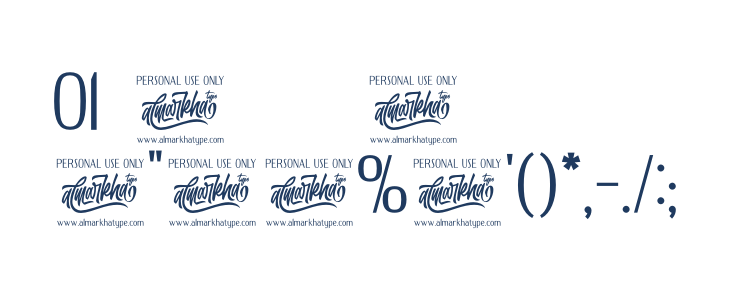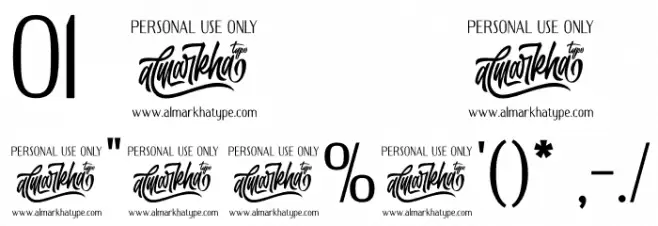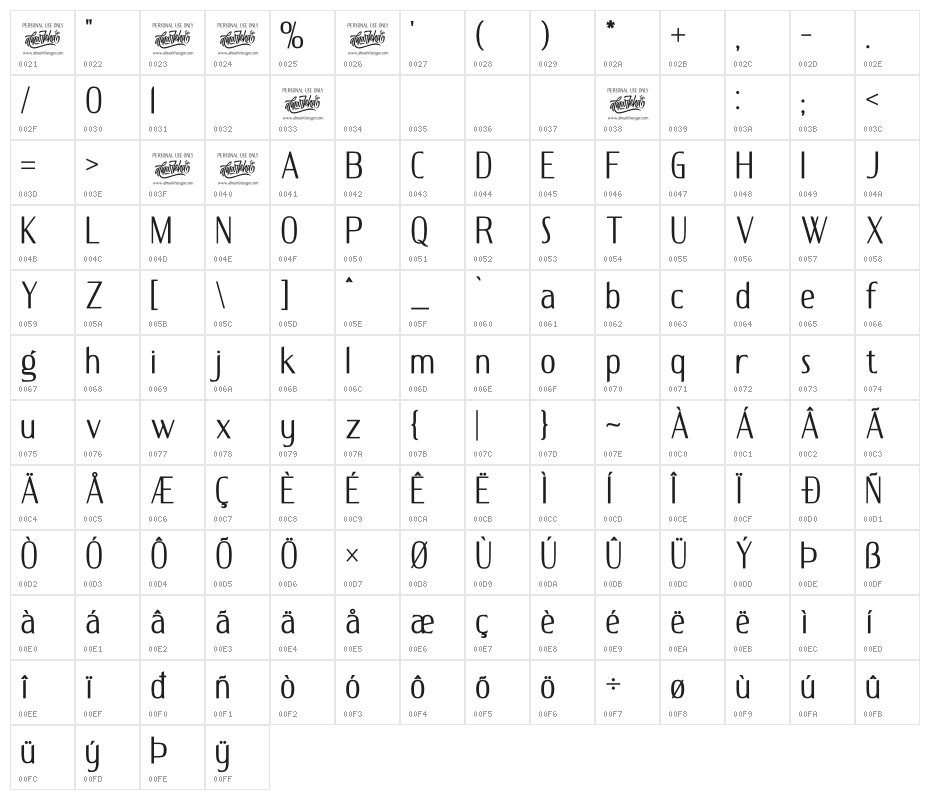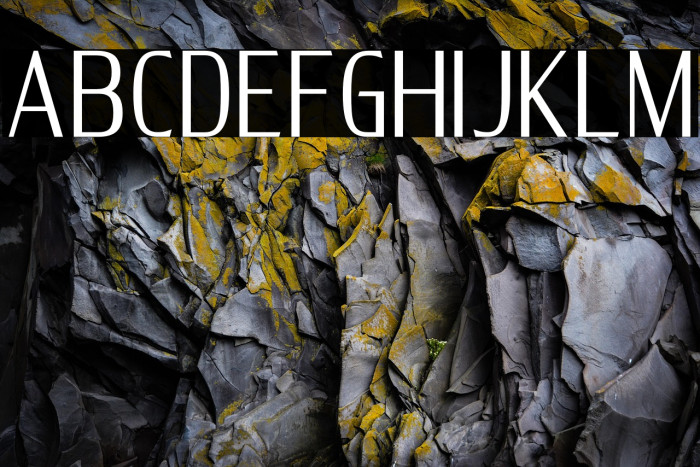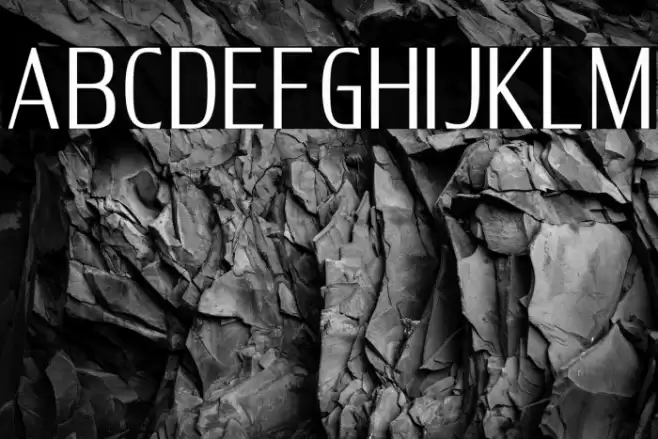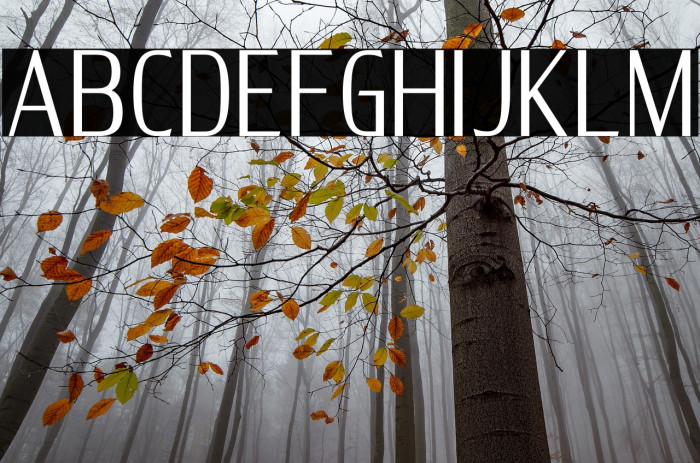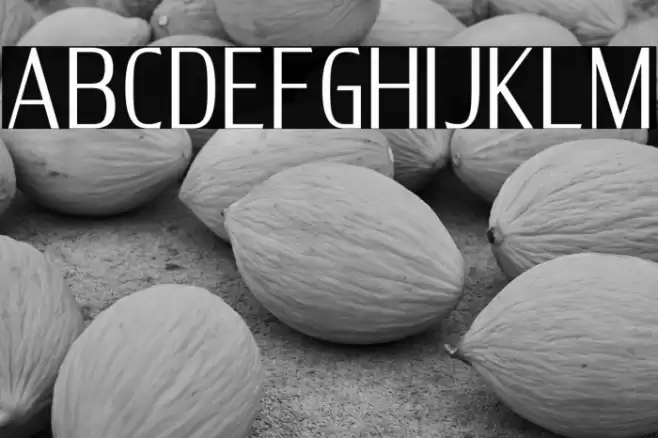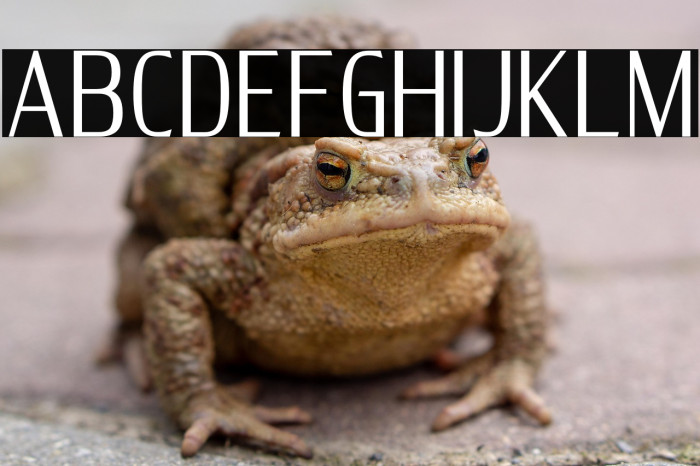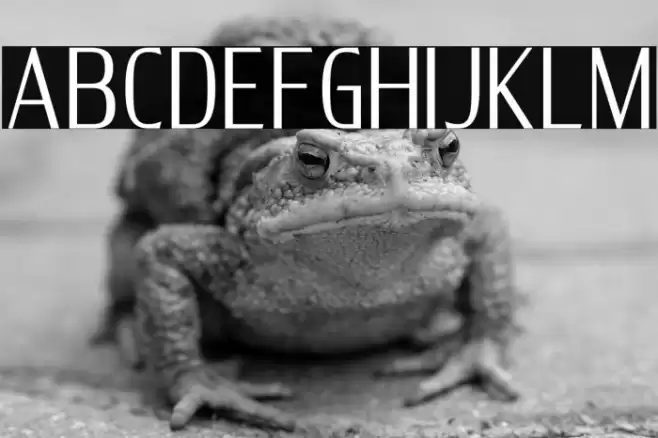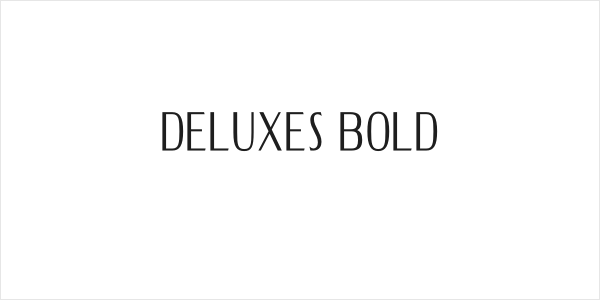
DELUXES BOLD Font
DELUXES BOLD Description
This font features a modern and sleek design with clean lines and a geometric structure. The uppercase letters are tall and narrow, giving a sense of elegance and sophistication. The lowercase letters maintain a consistent style, with smooth curves and a balanced appearance. The numerals are clear and easy to read, complementing the overall aesthetic. Special characters are well-integrated, maintaining the font's cohesive look. This typeface is versatile, suitable for a variety of design projects that require a contemporary and stylish touch.
| Proposed Projects | Ideal for branding, advertising, editorial design, and digital media. |